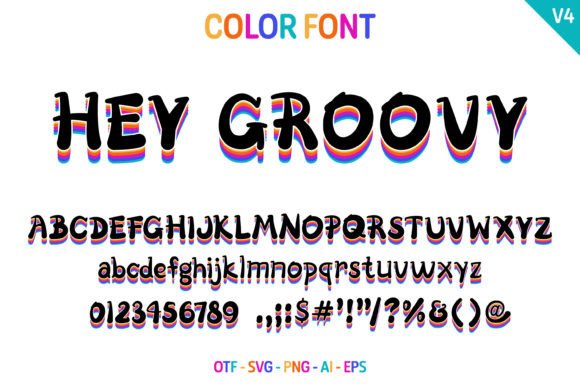
Unleash the Groovy Vibes with Hey Groovy Font: A Retro Delight for Designers and Tattoo Enthusiasts
Journey back to the era of peace, love, and rock 'n' roll with Hey Groovy Font, a dazzling display of retro charm and modern elegance. Inspired by the groovy vibes of the 60s and 70s, this font family captivates with its playful spirit and unique letterforms, becoming the perfect choice for designers and tattoo lettering artists seeking a touch of nostalgia and whimsy.
Hey Groovy's unique and eye-catching letterforms dance across your designs, evoking a sense of vintage cool and inviting a groovy sensation. Each character exudes personality, making this font perfect for posters, album covers, and any design that demands a memorable touch. Be it for headlines or body text, Hey Groovy adds a dash of groovy magic, ensuring your projects resonate with a timeless appeal.
Unleash your inner groovy and dive into a world of retro delight with Hey Groovy Font. Its vibrant and playful energy promises to transform your designs into captivating works of art, leaving a lasting impression on your audience. Embrace the spirit of the 60s and 70s and let Hey Groovy take your designs to groovy new heights!